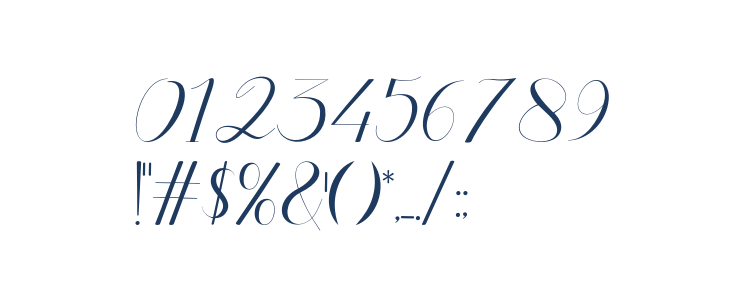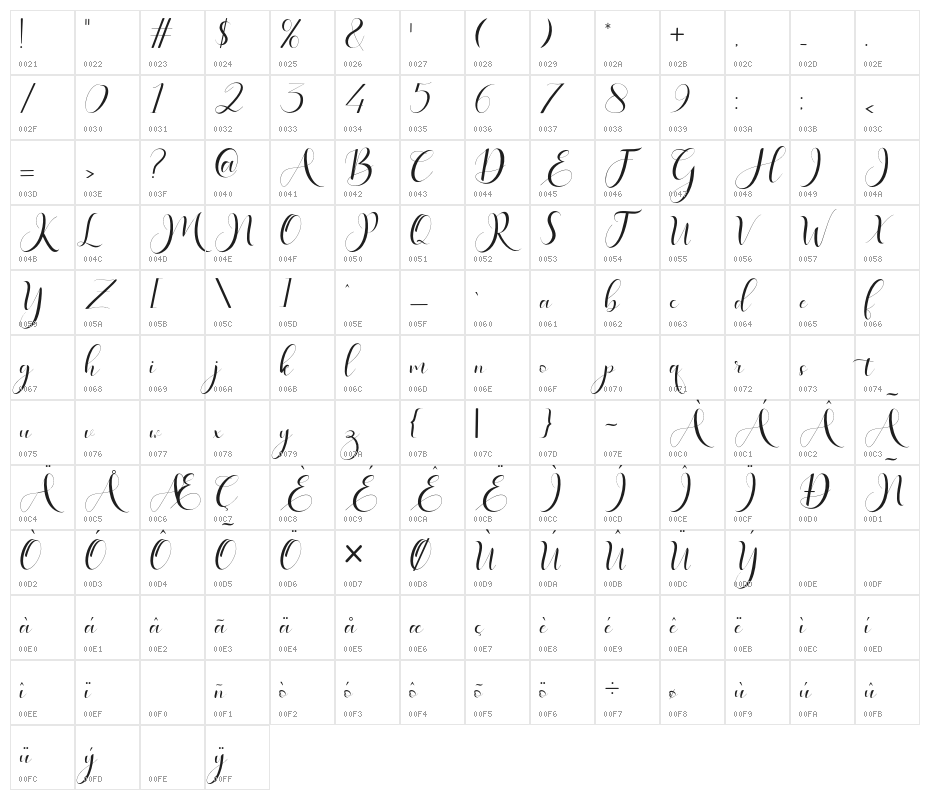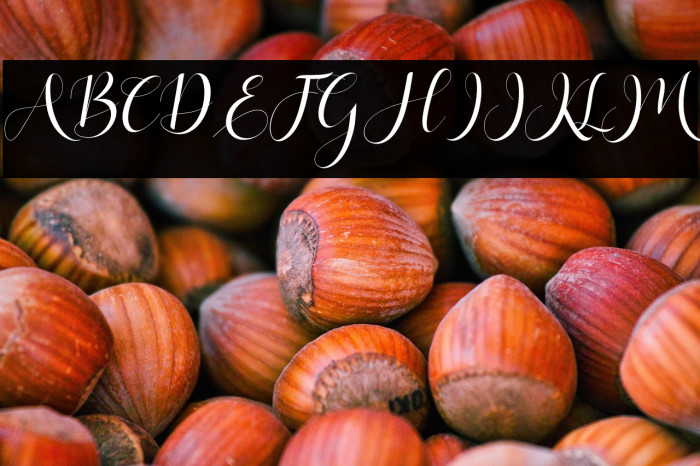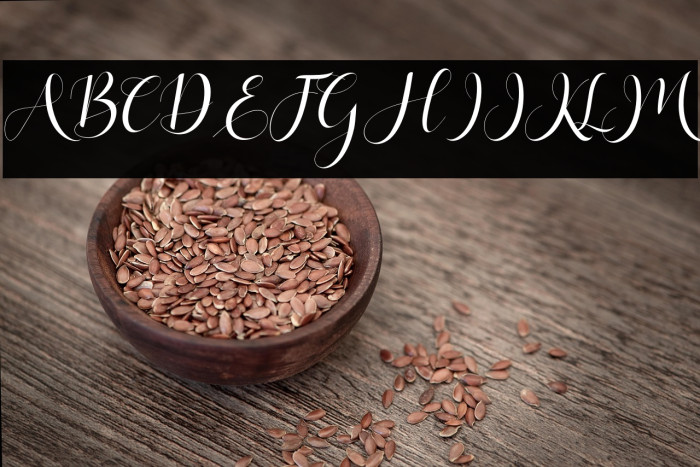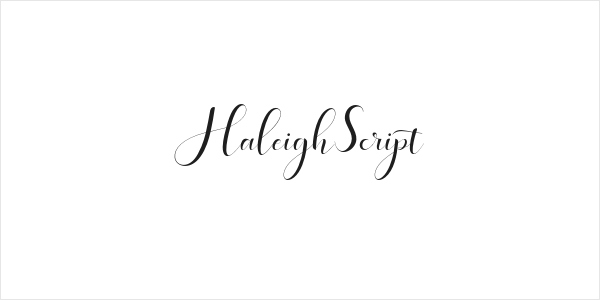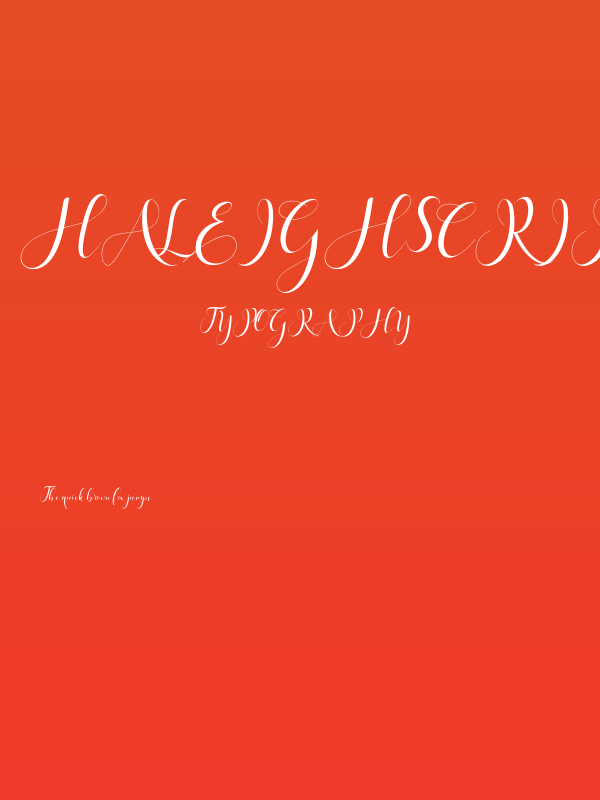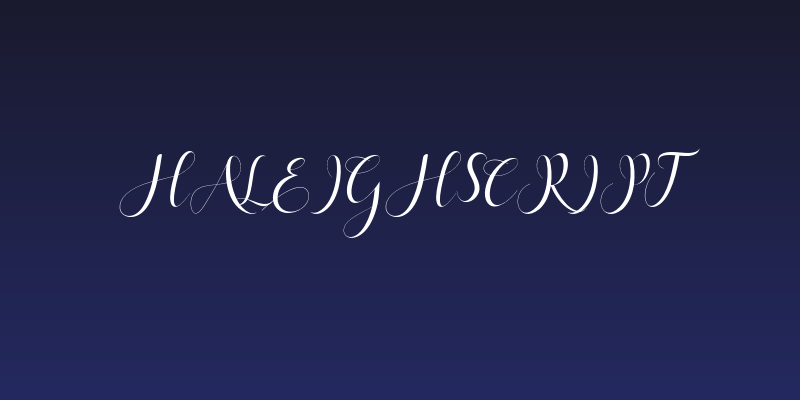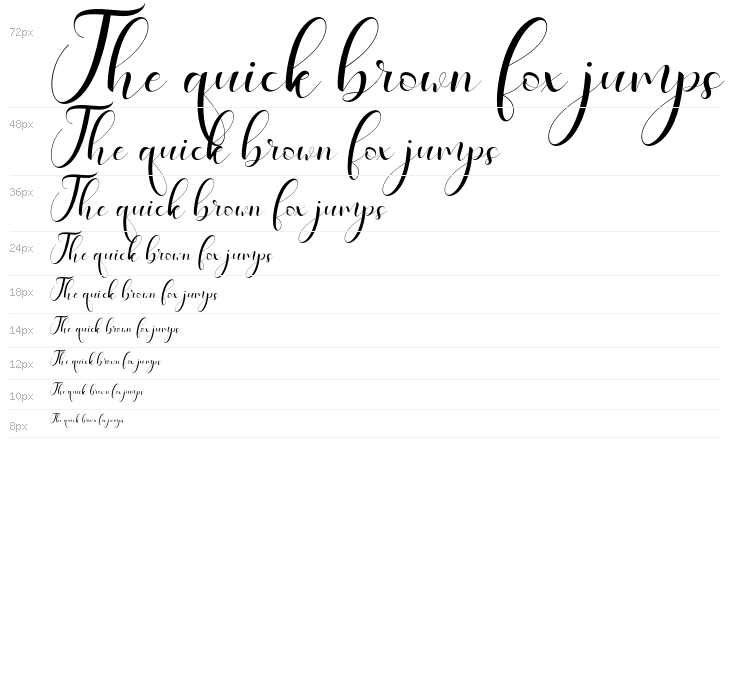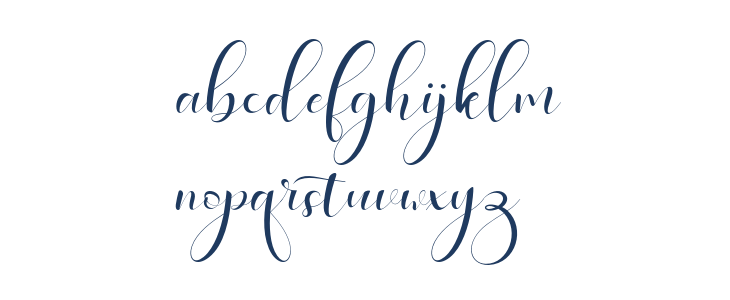
HaleighScript Font
HaleighScript Description
This elegant script font features flowing, cursive letterforms with a sophisticated and graceful appearance. The characters are connected with smooth, sweeping strokes that give a sense of fluidity and movement. The uppercase letters are ornate and decorative, while the lowercase letters maintain a consistent style with delicate loops and curves. The numerals are stylish and complement the overall aesthetic. Special characters are designed with the same attention to detail, enhancing the font's versatility. The font's high contrast between thick and thin strokes adds to its refined and polished look, making it suitable for formal and elegant designs.
| Overall Style | Elegant |
| Use Case | Logos, Invitations, Branding |
| Proposed Projects | Ideal for wedding invitations, elegant branding, high-end product packaging, and sophisticated event materials. |